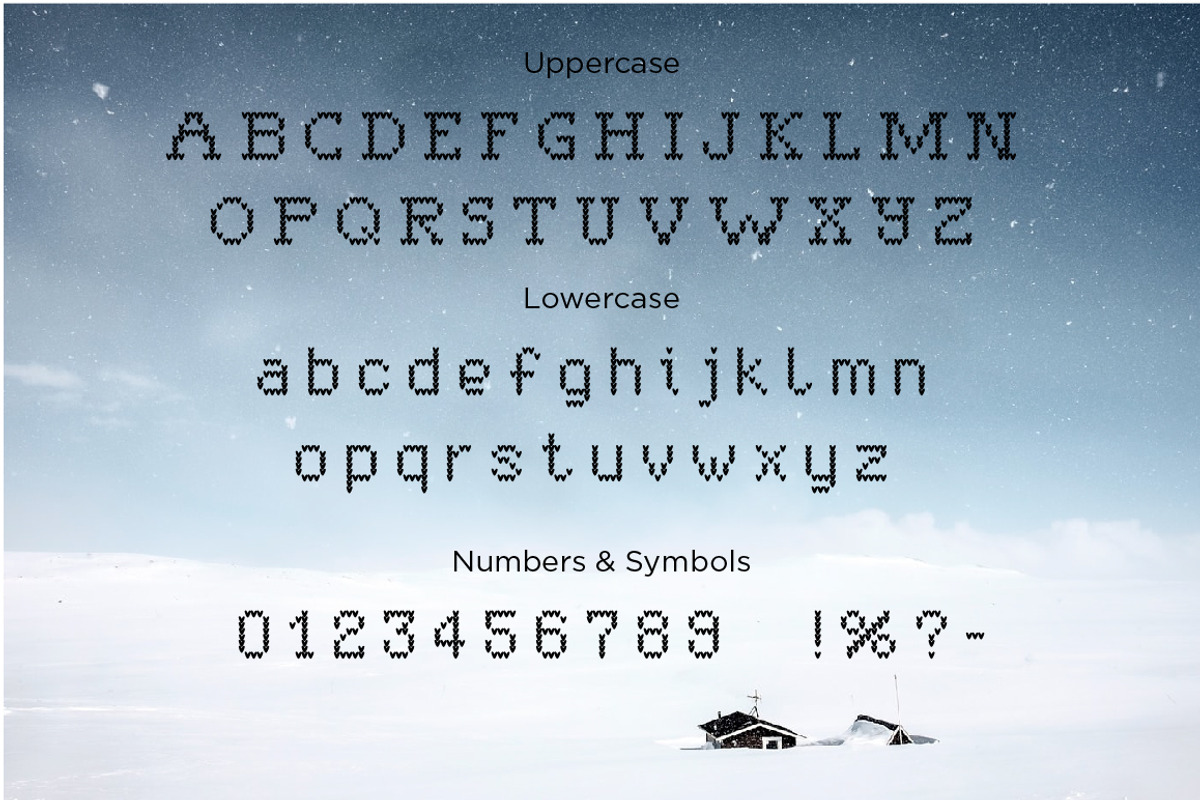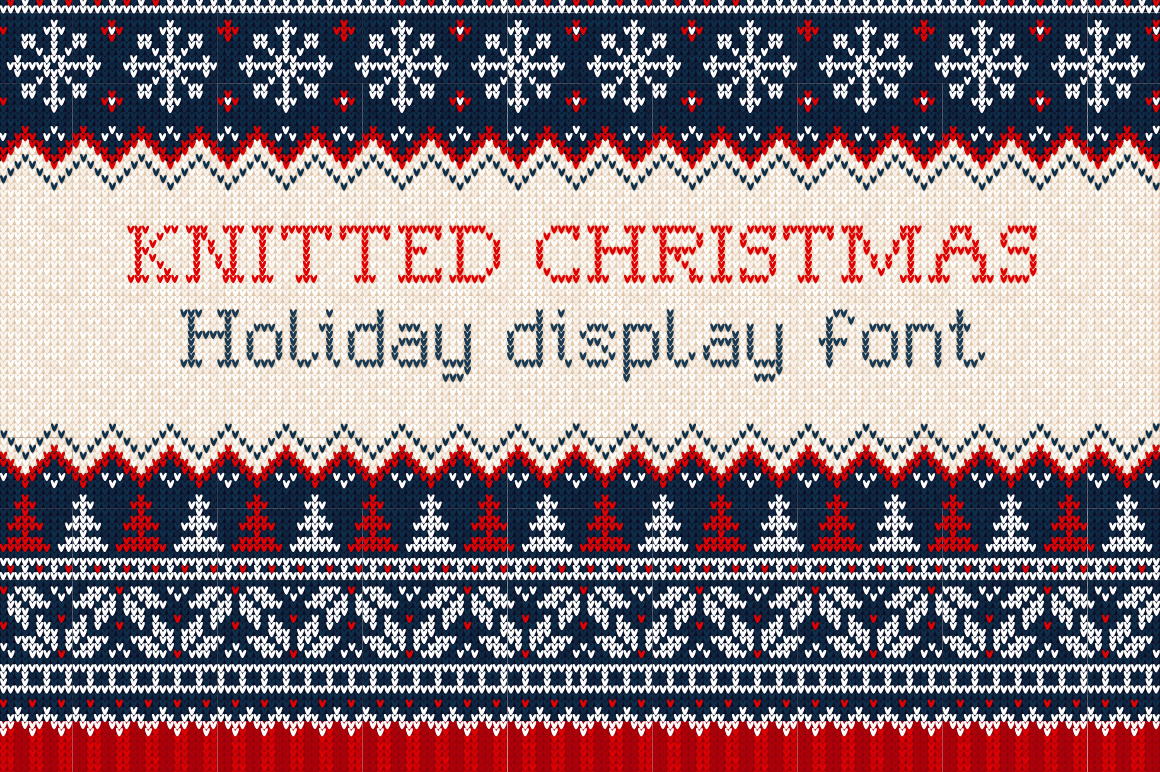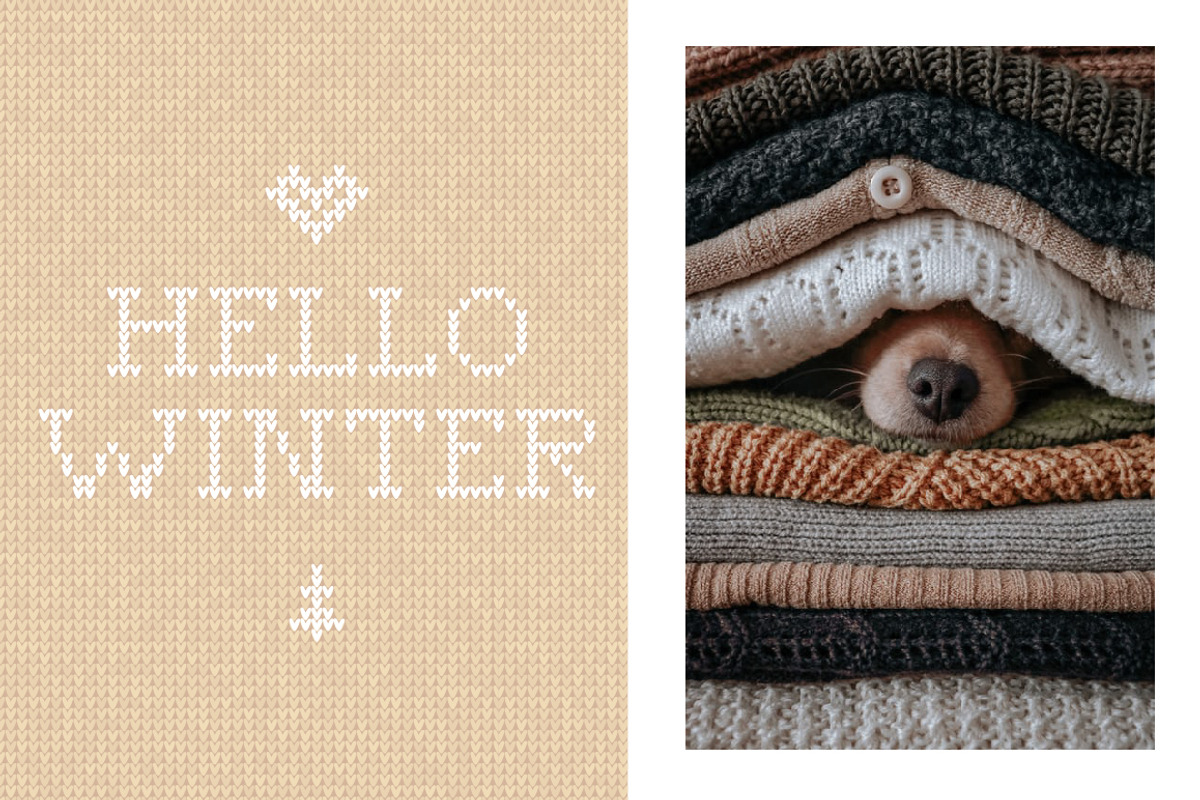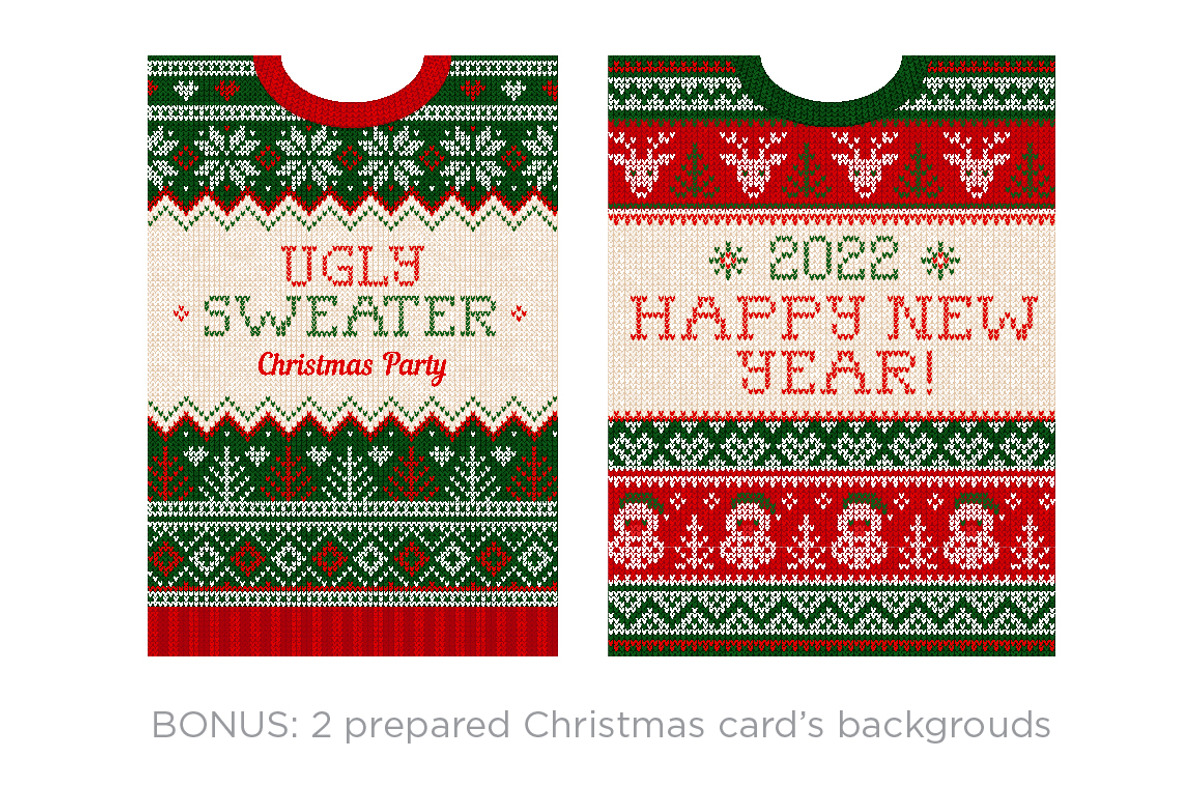
Knitted Christmas Font
Knitted Christmas Font and Seamless Pattern Bundle
Description: Capture the warm nostalgia of hand-knit holiday sweaters with our Knitted Christmas Font. This delightful typeface exudes the essence of the season with its cozy charm. Crafted in two variations - uppercase and lowercase - it offers versatility for your festive projects. The uppercase letters make a bold statement, while the lowercase adds a touch of whimsy.
- Character set A-Z in 2 variations (Uppercase + lowercase)